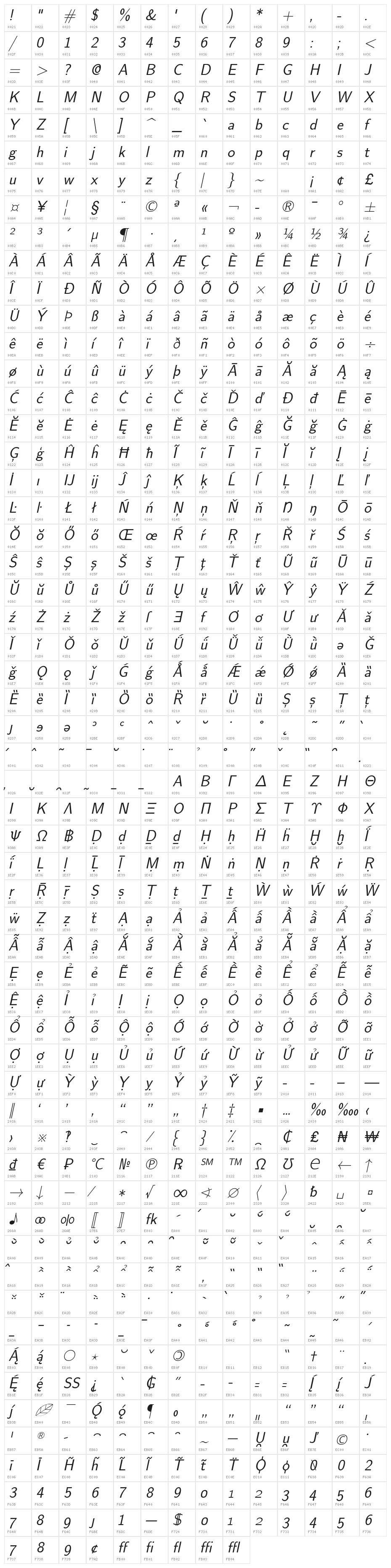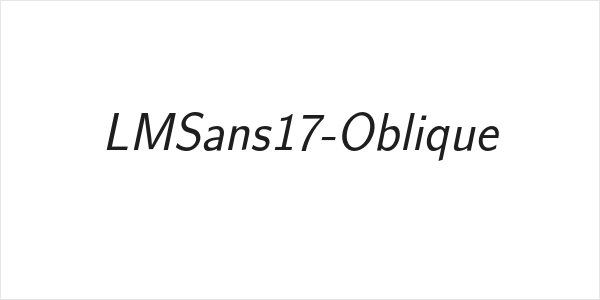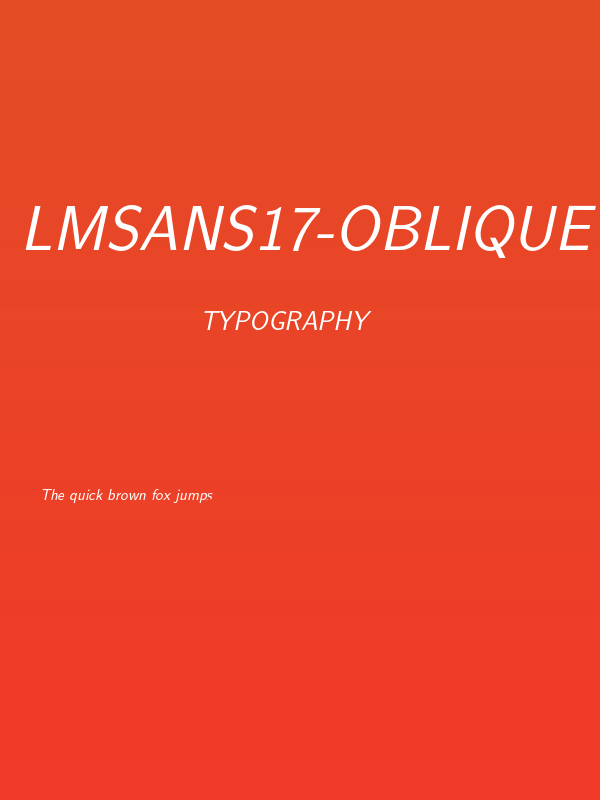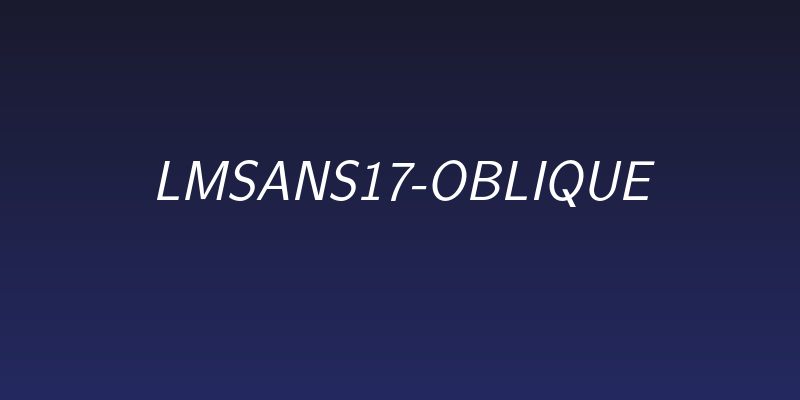
LMSans17-Oblique Font
LMSans17-Oblique Description
This font features a clean and modern sans-serif design with an oblique style, giving it a dynamic and forward-leaning appearance. The characters are well-proportioned with a consistent stroke width, contributing to its legibility and versatility. The uppercase and lowercase letters maintain a harmonious balance, while the numerals are clear and distinct. Special characters are included, enhancing its utility for various applications. The overall aesthetic is sleek and professional, making it suitable for both digital and print media.